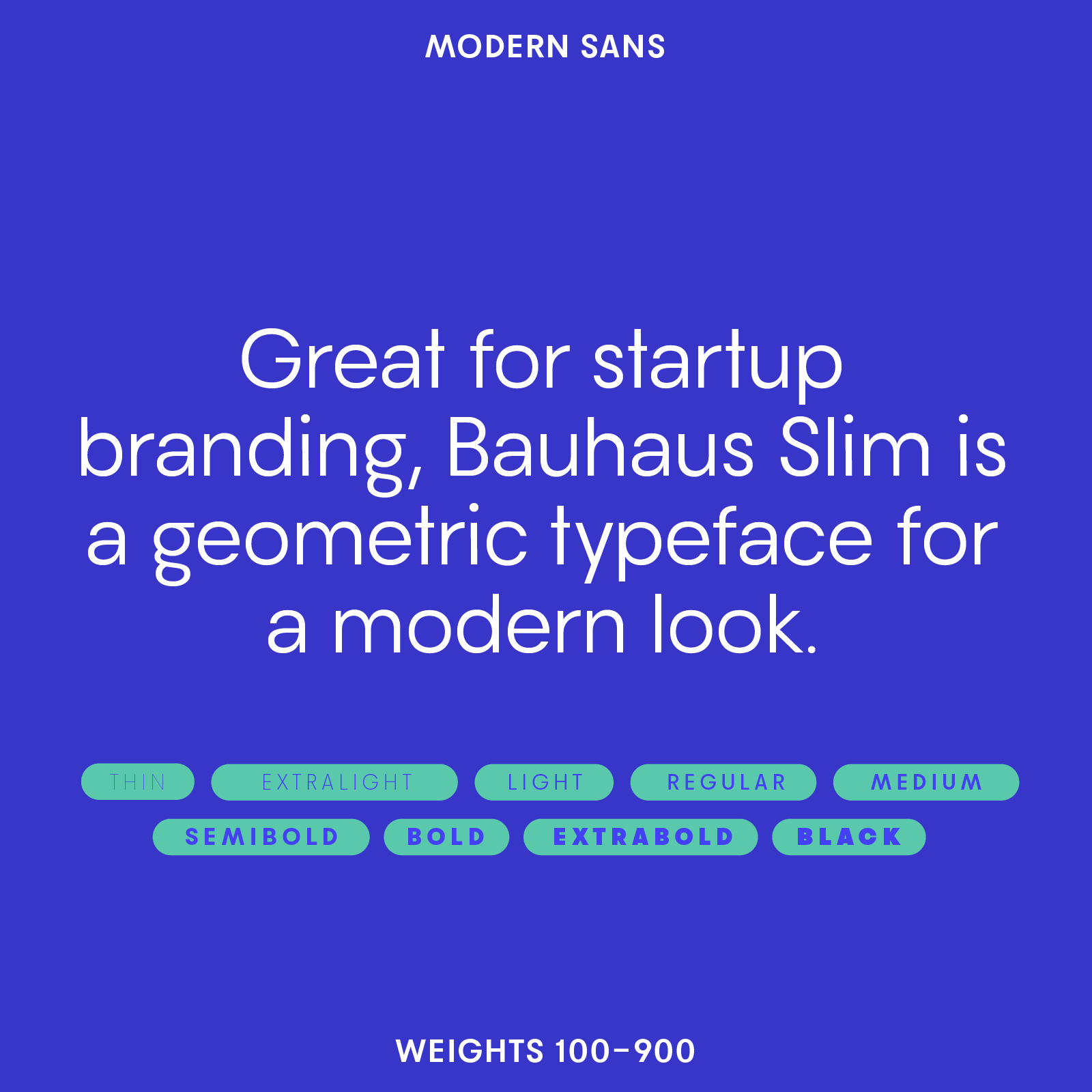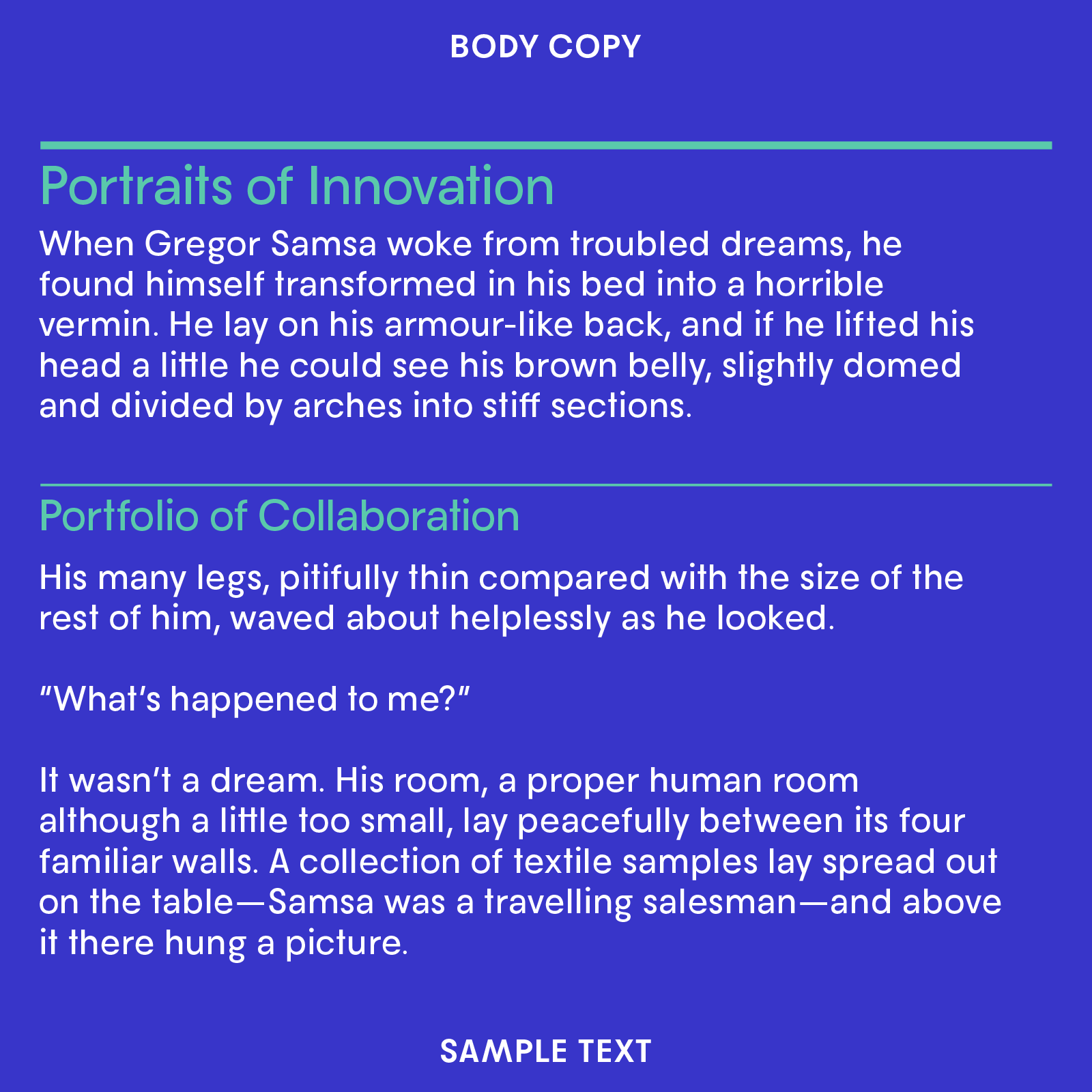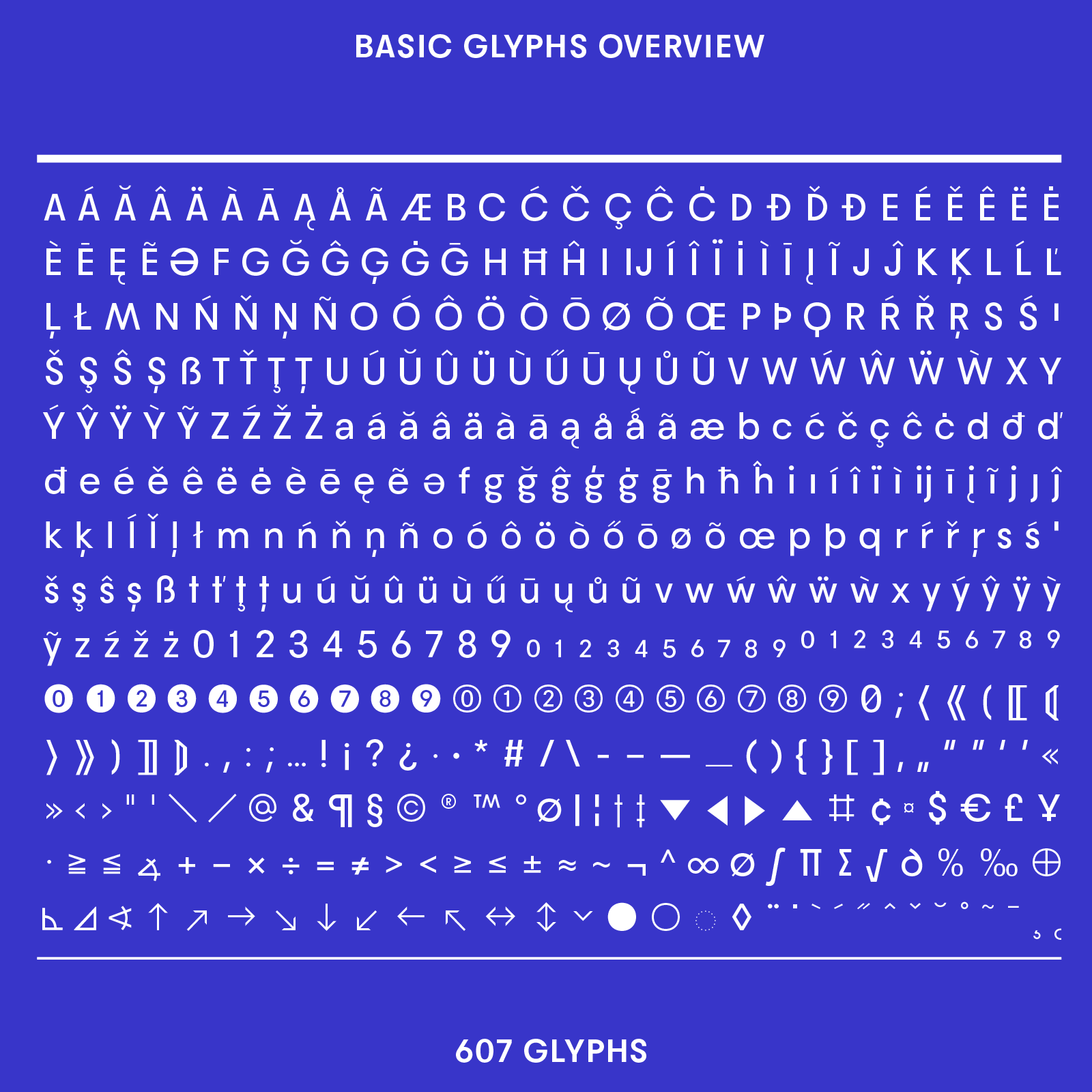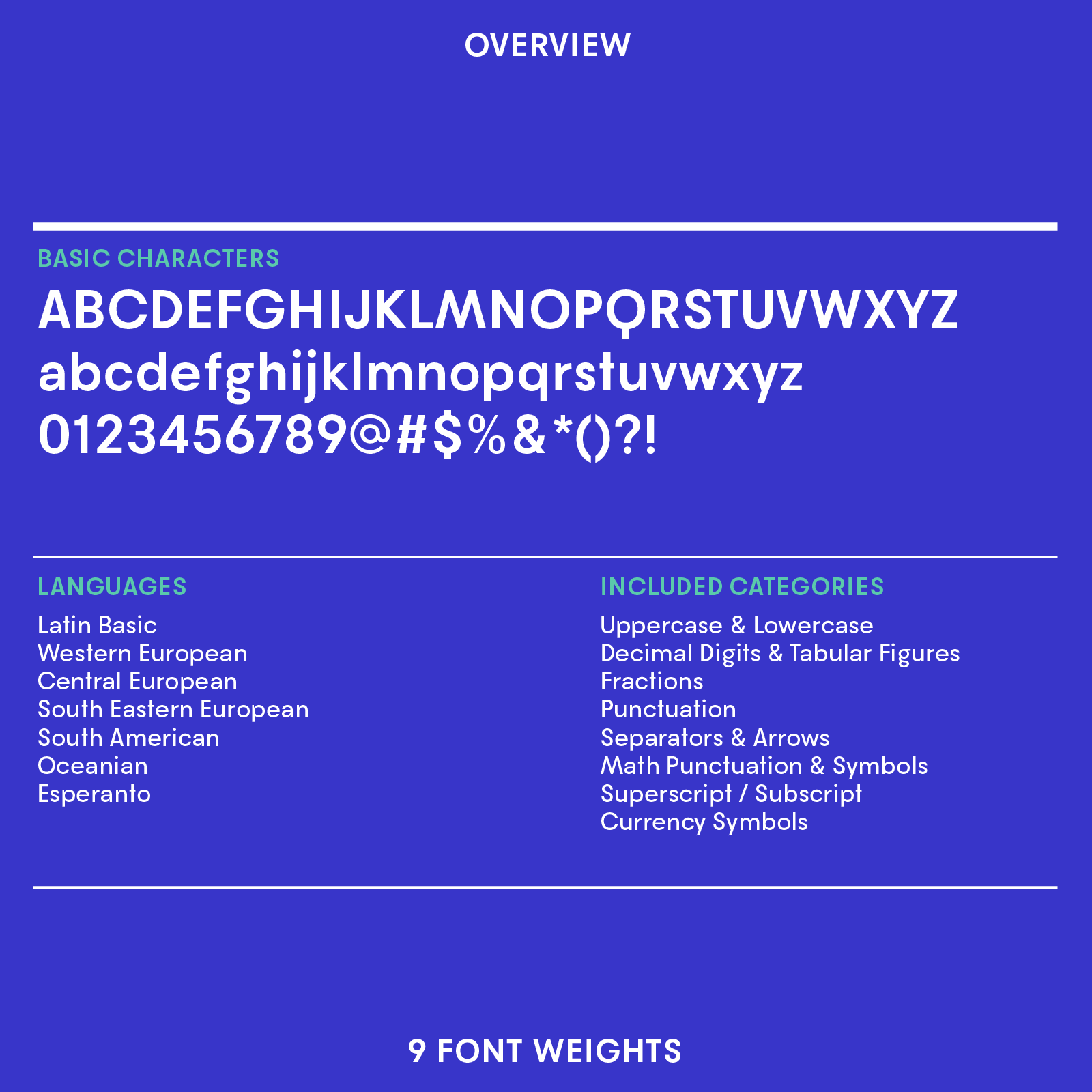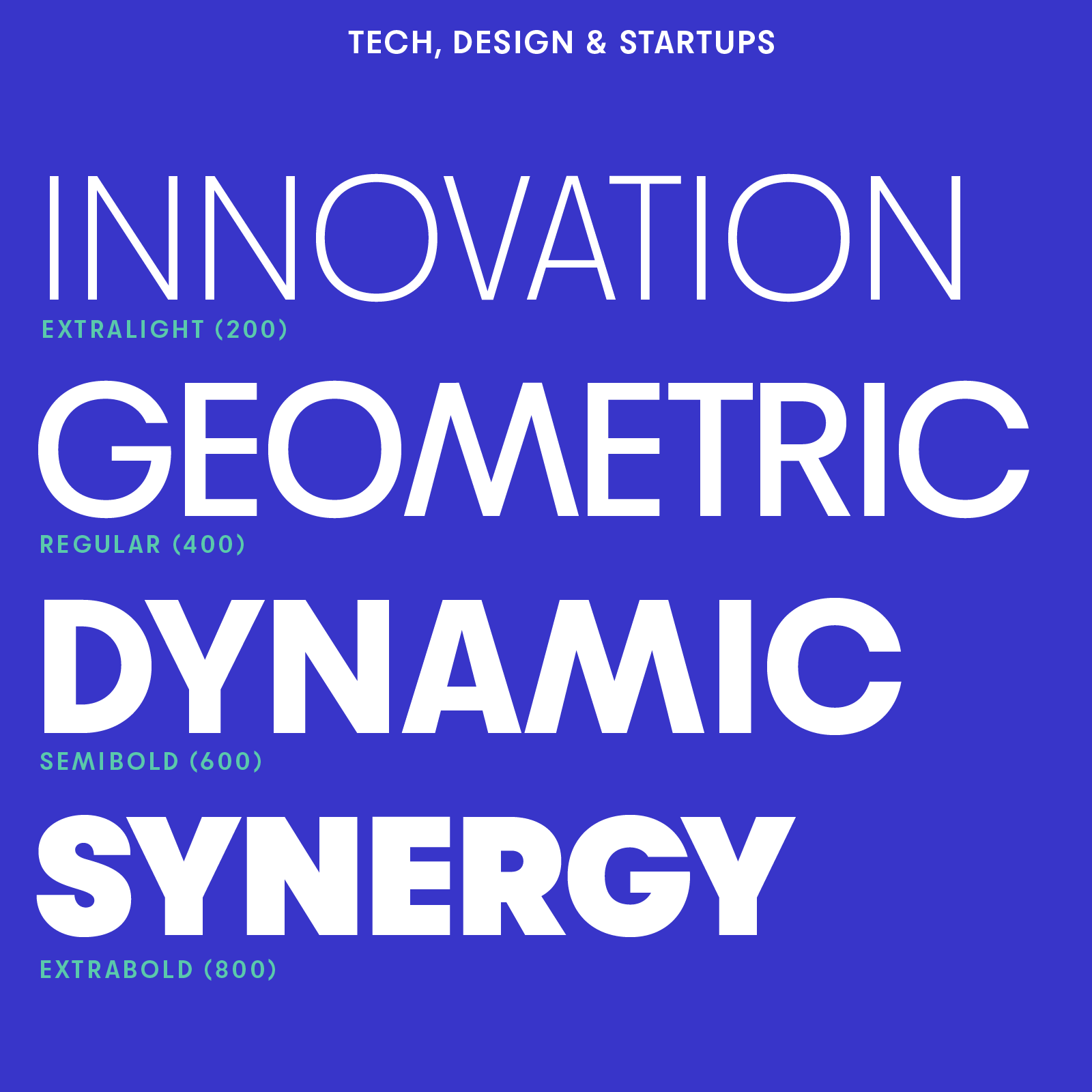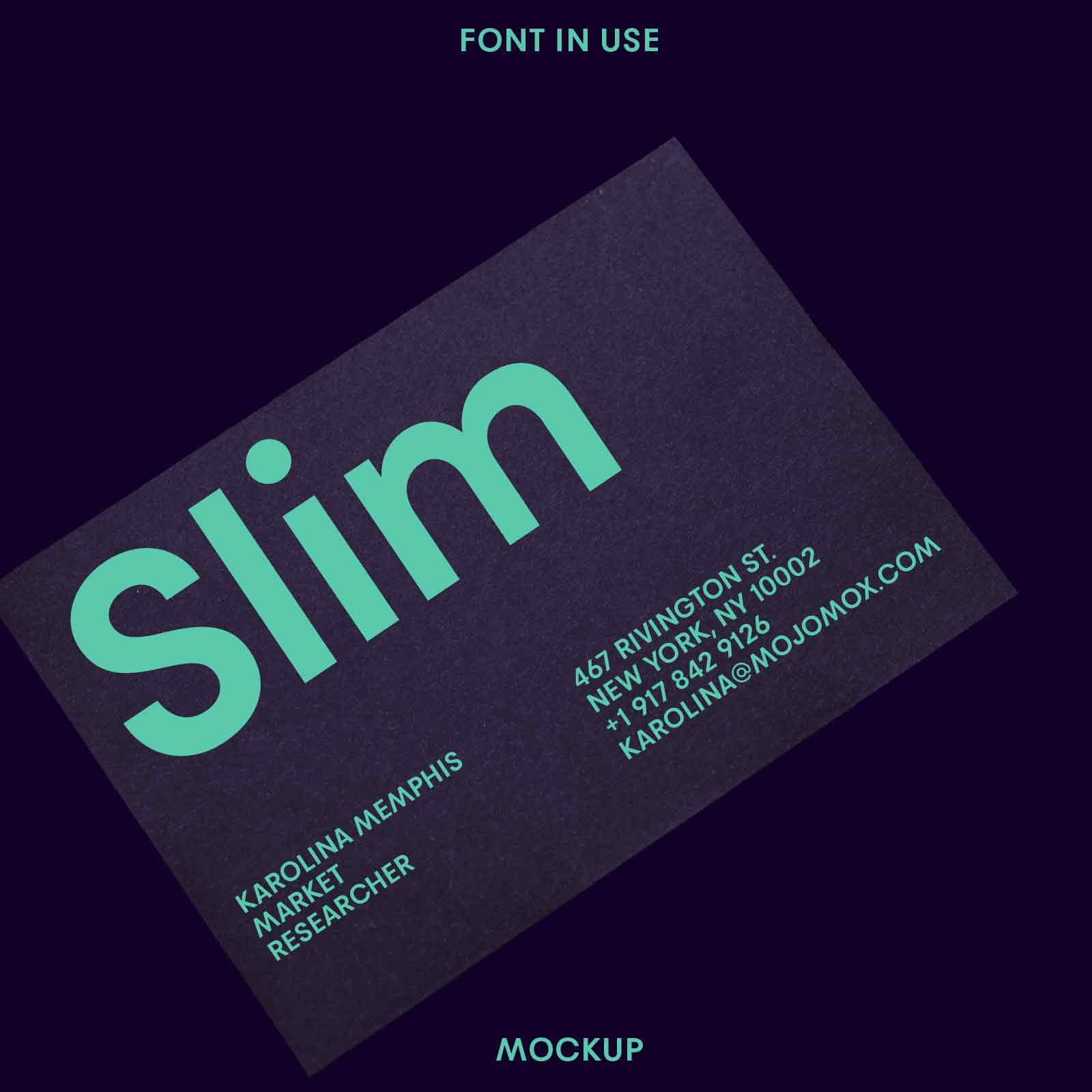
Slim—Friendly Condensed Sans Serif Font, Round Dots
Great for versatile branding, Bauhaus Slim is a geometric typeface for a modern look. This sans serif font works well for tech, finance, and health startups but also for minimal food and beauty branding.
Available in 9 weights from Thin to Black, Slim works well for easy modern, and friendly designs. Pairs well with Goji, Desk, and Quil.